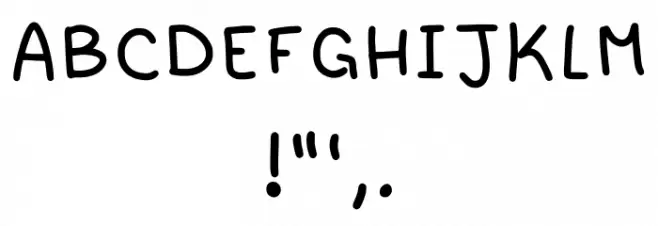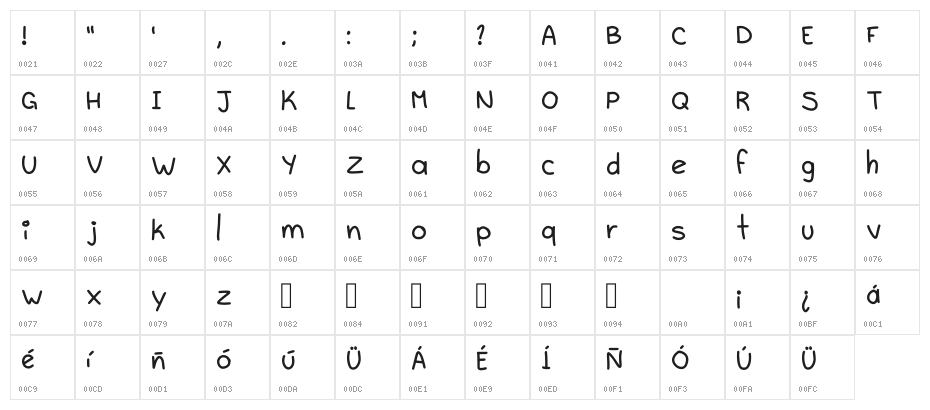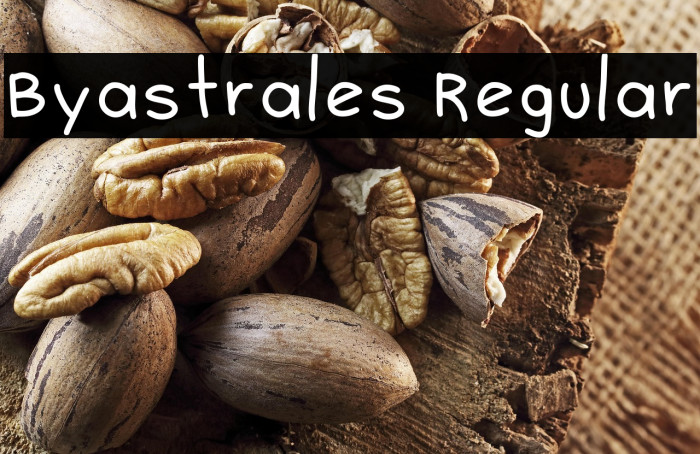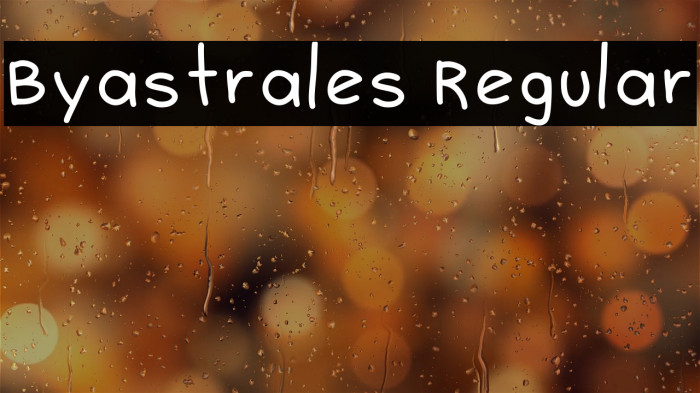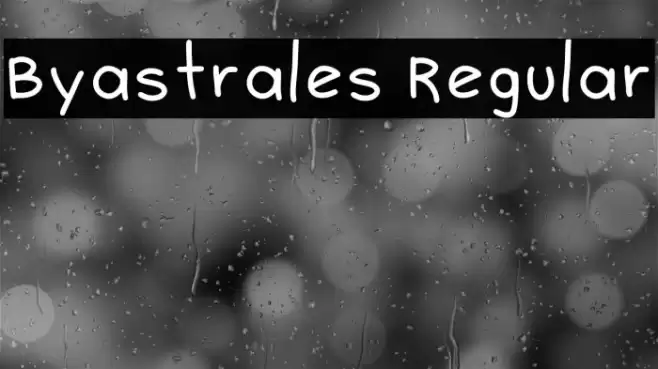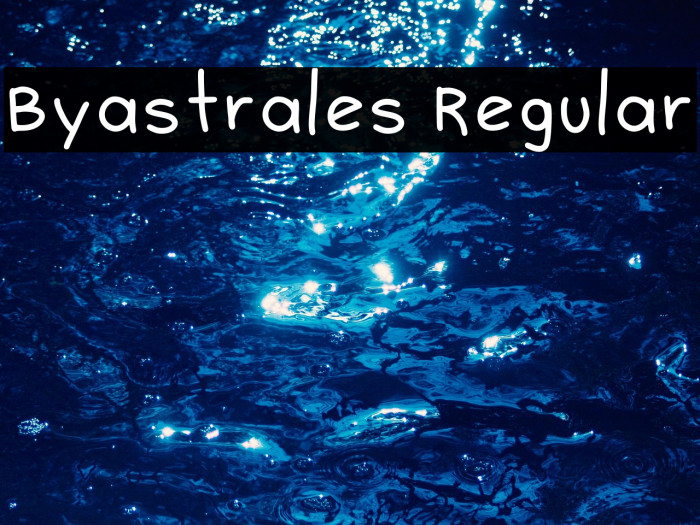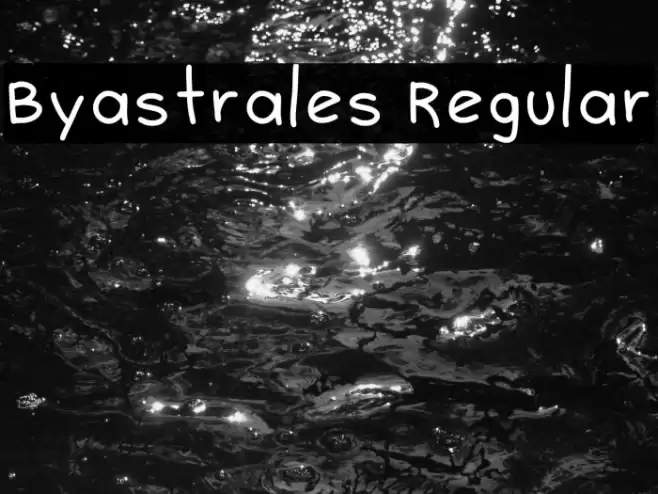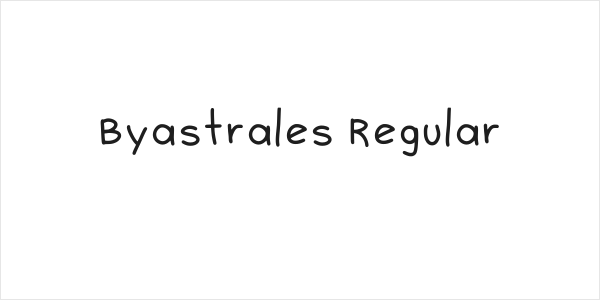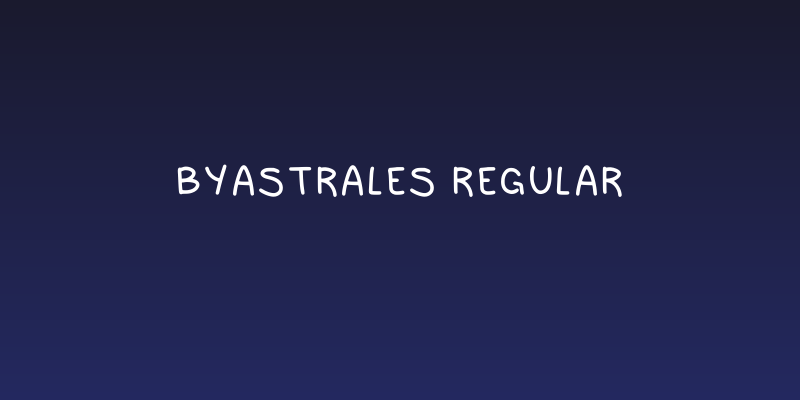
Byastrales Regular Font
Byastrales Regular Description
This font presents a playful and informal style, characterized by its hand-drawn appearance. The letters have a whimsical, slightly uneven quality, giving them a friendly and approachable feel. The strokes are consistent in thickness, providing a uniform look across all characters. The rounded edges and slight slant add to its casual charm, making it ideal for projects that require a personal touch. The font includes both uppercase and lowercase letters, numerals, and a selection of punctuation marks, ensuring versatility in various design contexts.
| Proposed Projects | Ideal for children's books, greeting cards, informal invitations, and playful branding. |